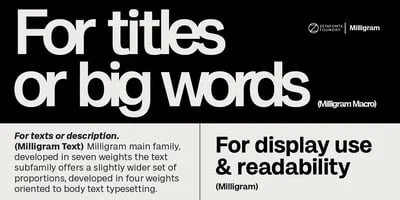
The Milligram Font
The The Milligram Font excels in various design applications including precision pharmaceutical branding, scientific research communications, medical equipment marketing, laboratory instrument packaging, healthcare technology interfaces, clinical documentation design, analytical measurement systems, precision engineering identities, scientific publication layouts, and technical measurement projects that demand microscopic accuracy and scientific sophistication.
What makes the The Milligram Font exciting is its embodiment of scientific precision and measurement accuracy through letterforms that suggest the meticulous attention to detail required in pharmaceutical and scientific applications. This typeface captures the essence of laboratory precision through carefully calibrated characters that convey reliability, accuracy, and the critical importance of exact measurements in scientific and medical contexts. The font's precision personality makes it perfect for healthcare organizations and scientific institutions seeking to communicate technical expertise, measurement accuracy, and the life-critical importance of precise scientific work through typography that reflects the exacting standards of modern medical and scientific practice.
The The Milligram Font family typically includes precise weight variations that reflect different measurement scales, featuring technical italic styles and extended character sets optimized for scientific notation and medical documentation. These family options often include specialized symbols for pharmaceutical use, measurement indicators, and scientific characters that enhance the font's utility for laboratory communications and medical branding applications requiring absolute precision and professional credibility.
Medical professionals and scientific organizations consistently select The Milligram Font for projects requiring typography that communicates scientific accuracy and pharmaceutical reliability. This typeface delivers exceptional performance in healthcare communications, laboratory branding, and scientific marketing where establishing technical credibility and demonstrating precision standards is essential for professional trust. The font's measurement character makes it particularly effective for pharmaceutical and analytical applications. Download The Milligram Font today to access this precise typeface that transforms scientific communications with its measurement accuracy and technical sophistication, creating compelling professional experiences that demonstrate the highest standards of scientific precision and medical reliability while maintaining exceptional clarity for critical healthcare applications.